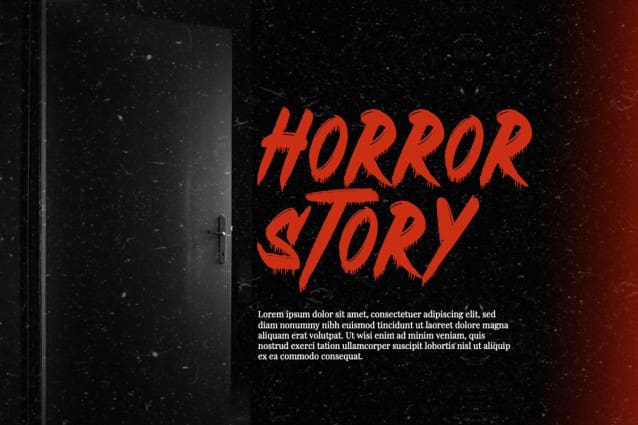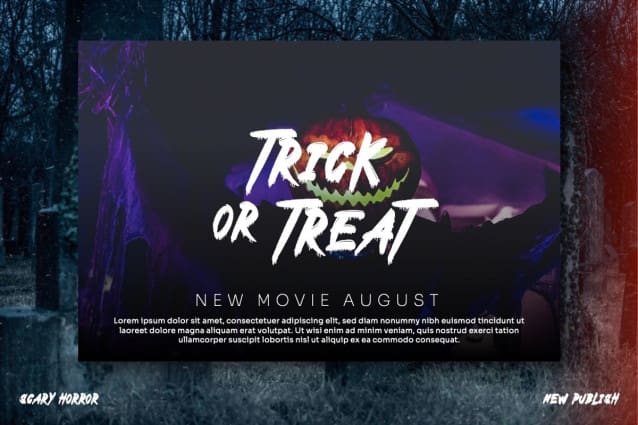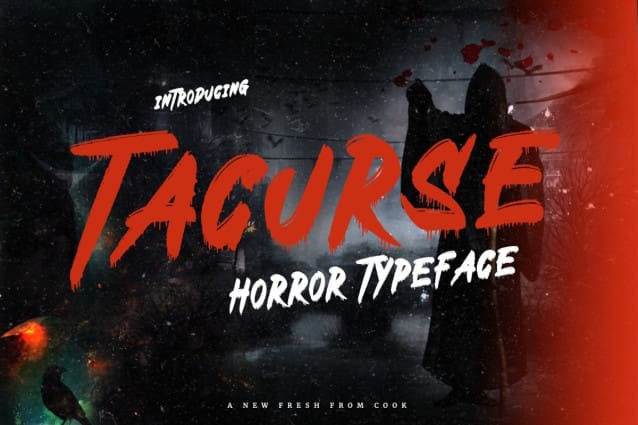
Tacurse Brush Font
Tacurse Brush Font is a flowing and stylish display brush font, created with the help of a brush pen. Get inspired by its unique and beautiful style and add it to your favorite designs!